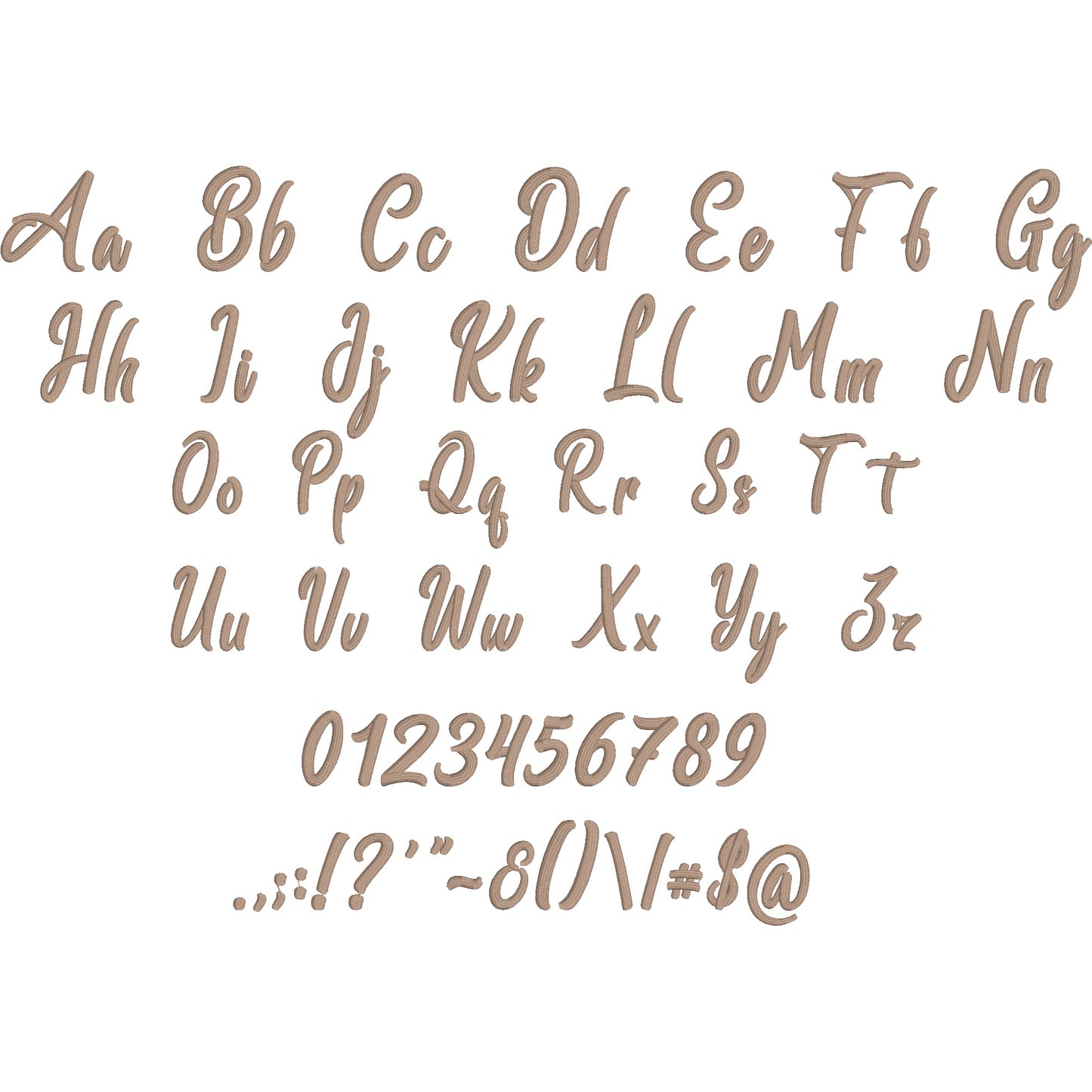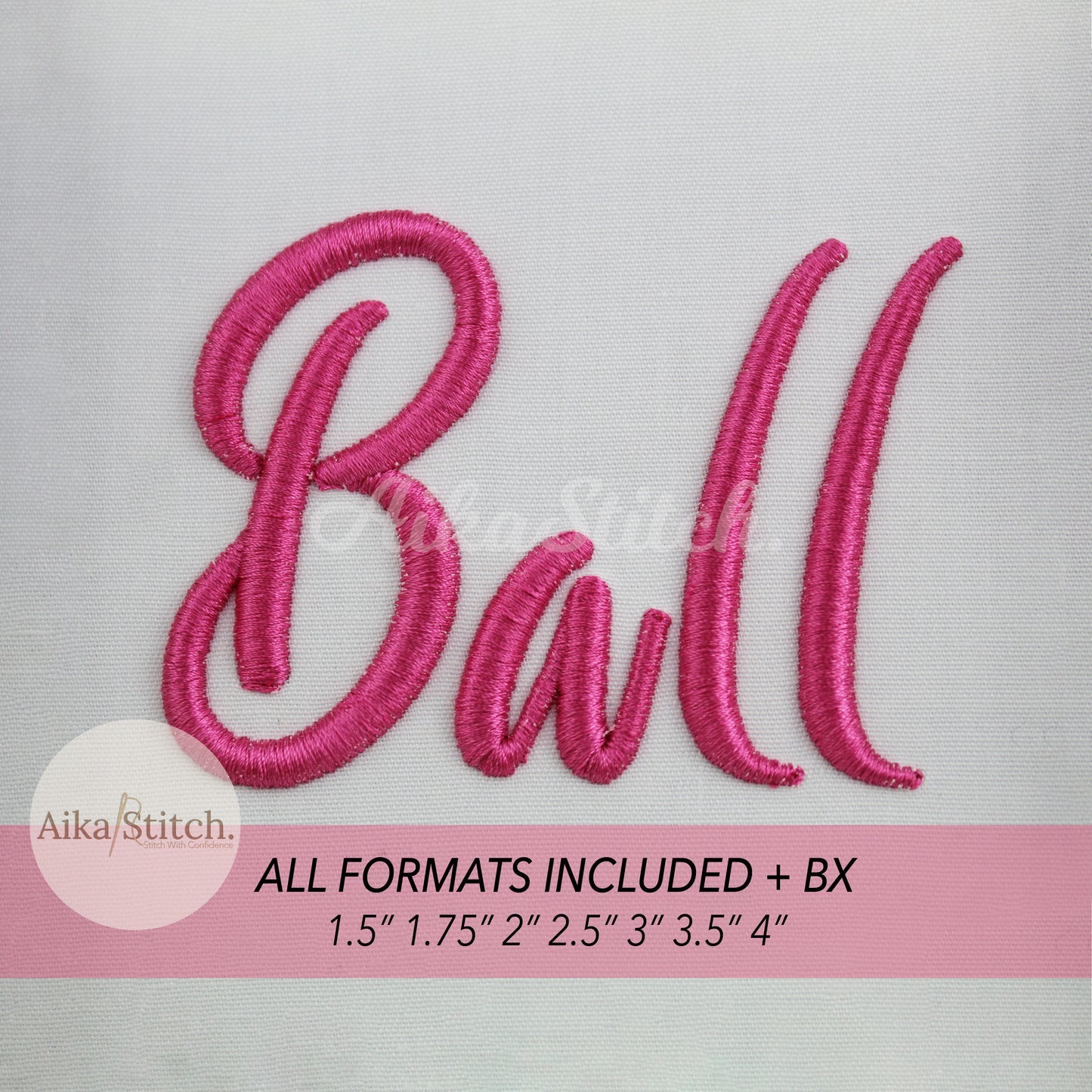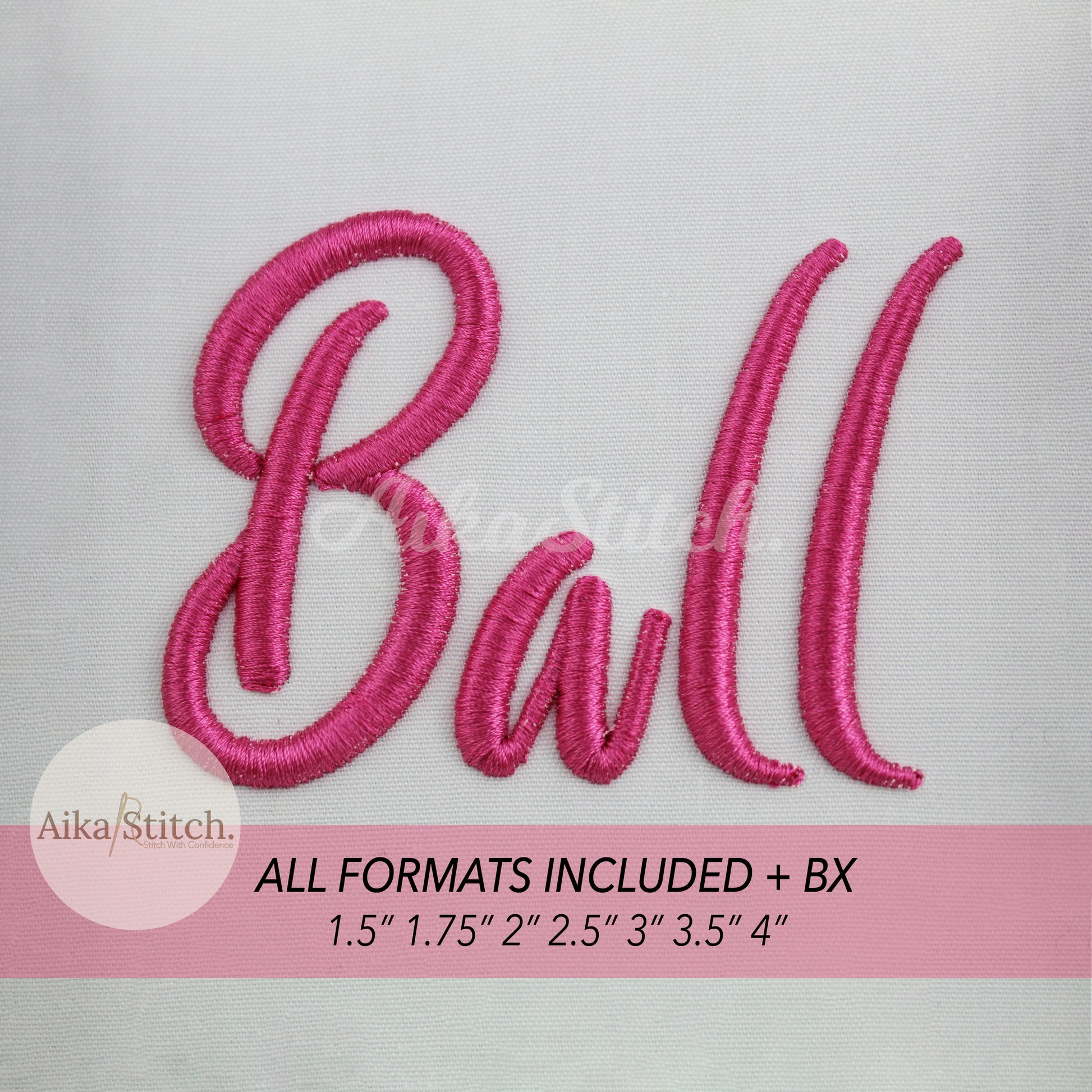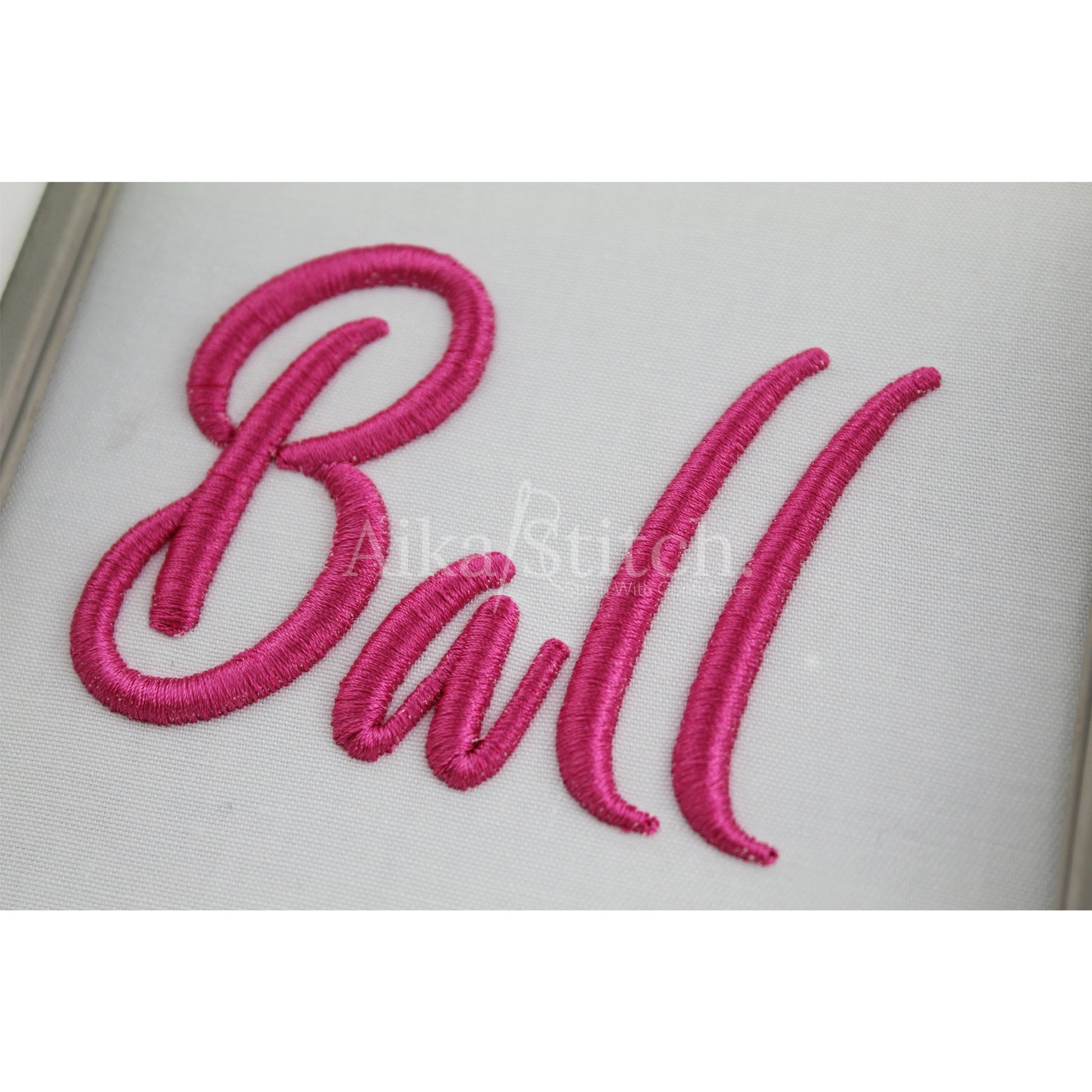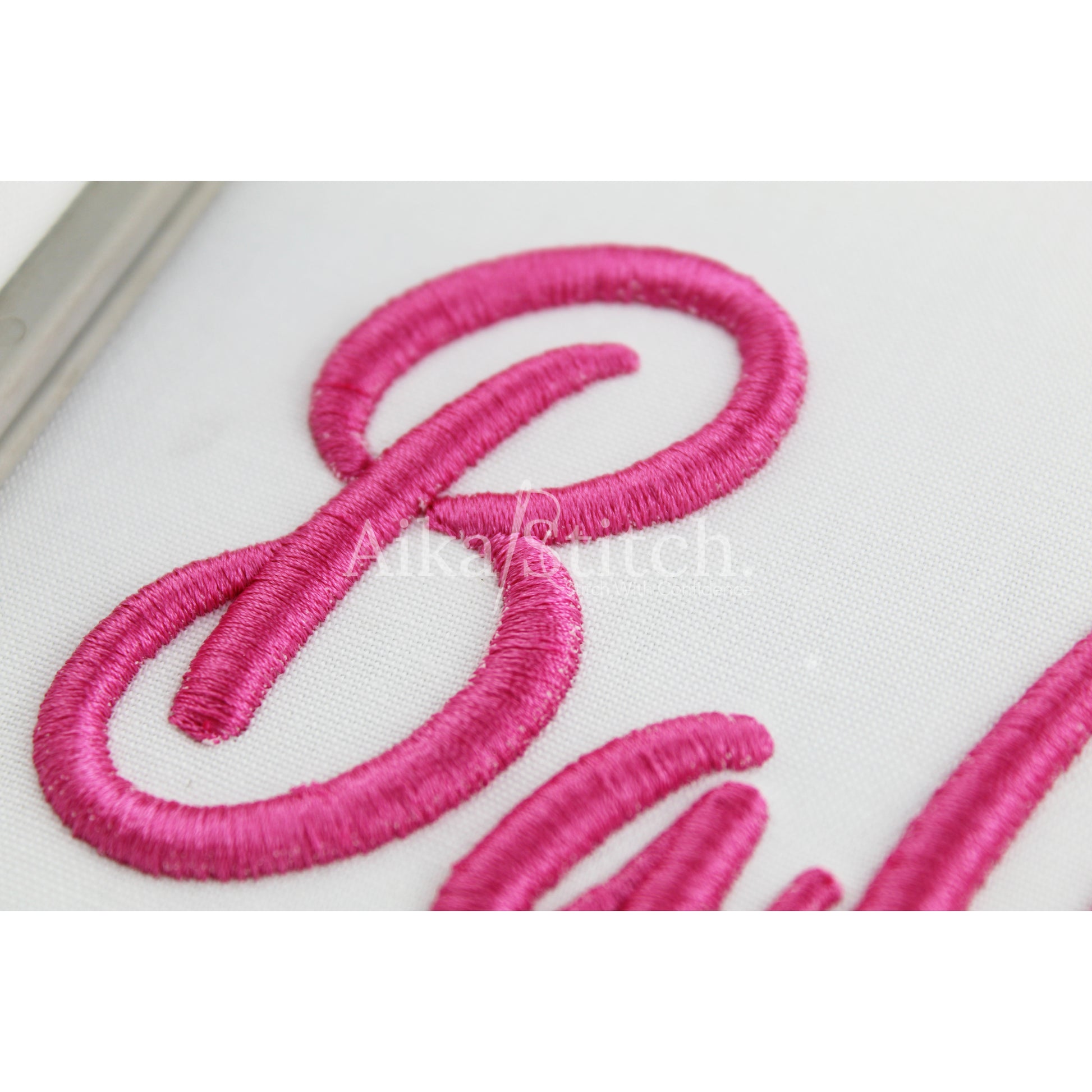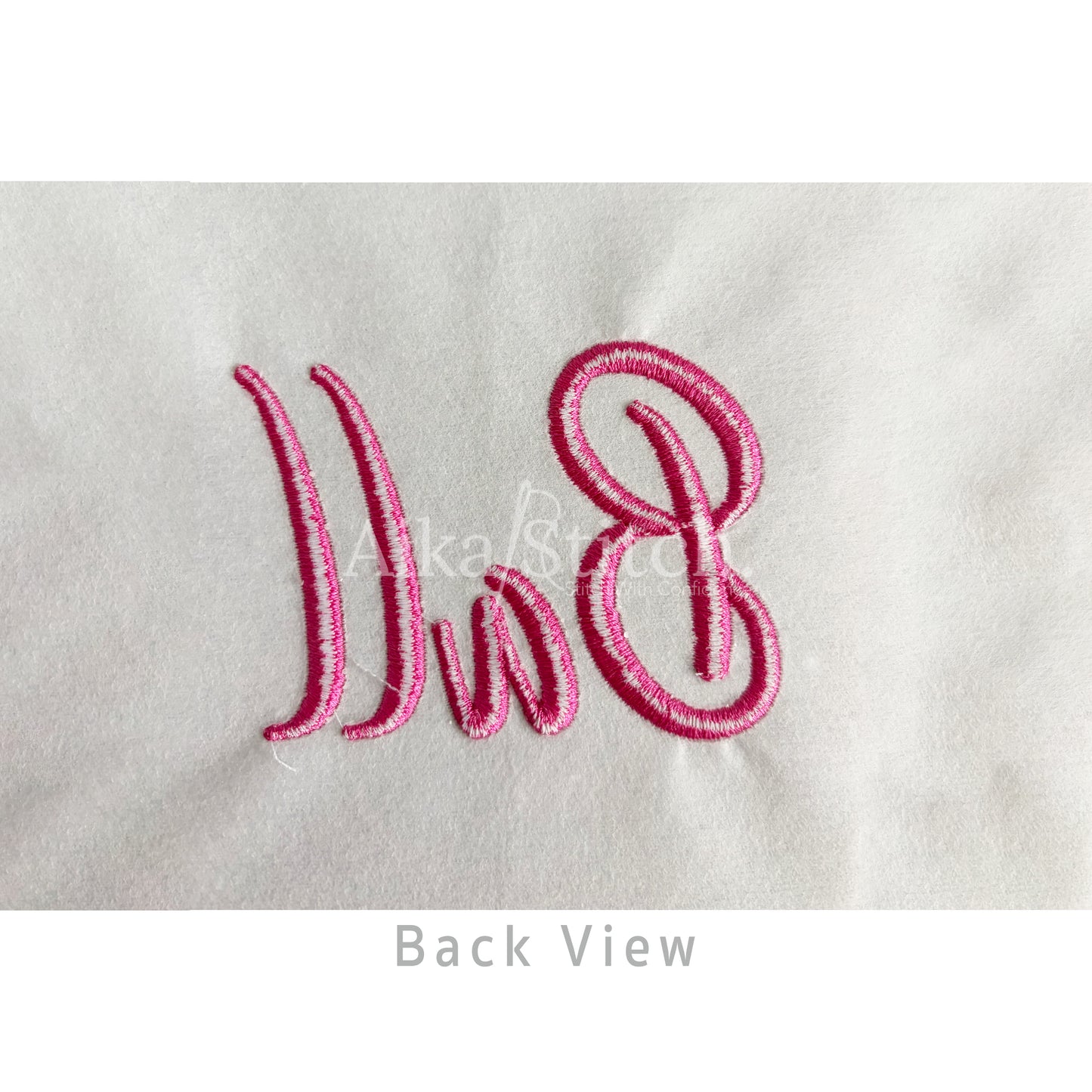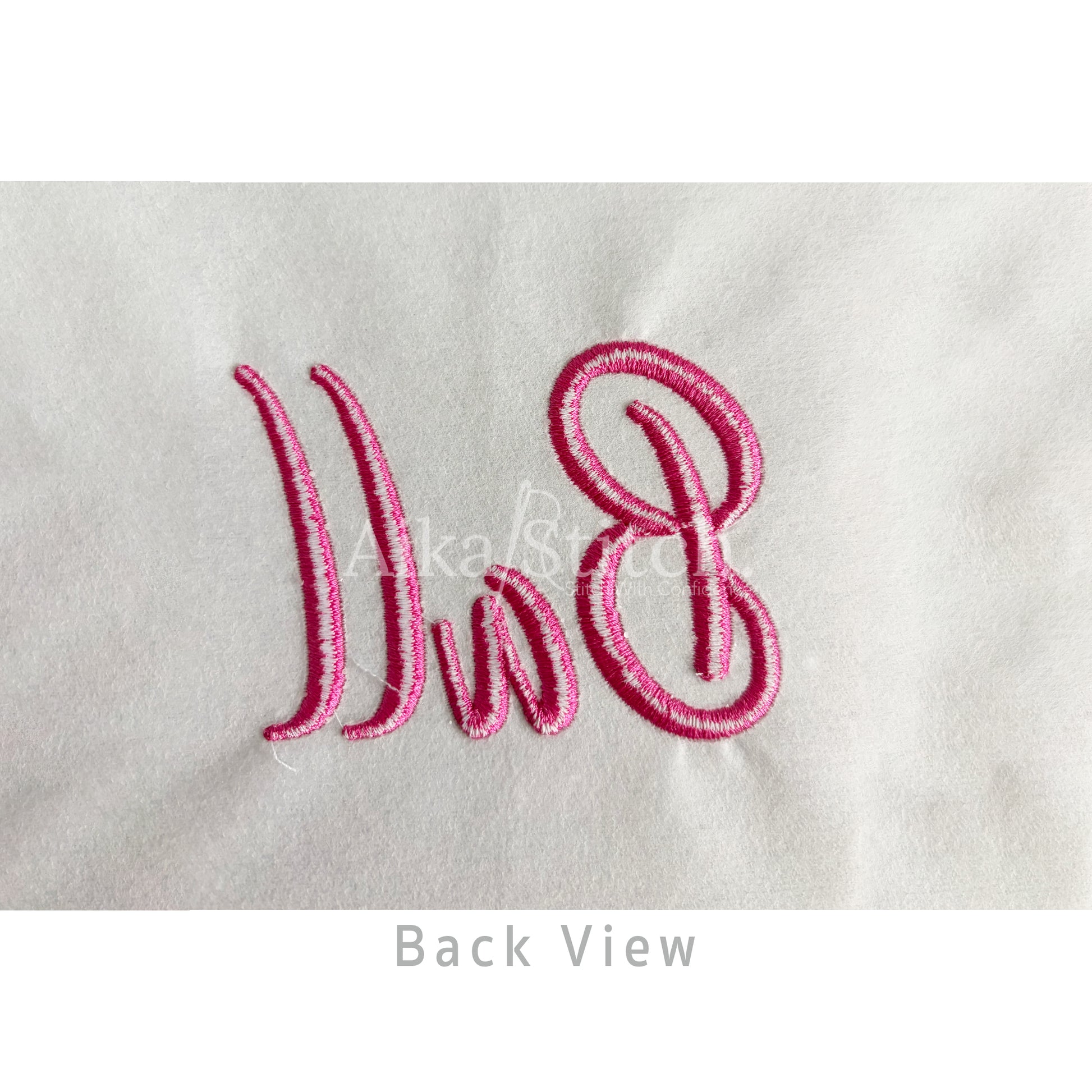
Ball 3D Puff Foam Handwritten Script Embroidery Font | BX Included
Ball 3D Puff is a Elegant Script machine embroidery font featuring beautiful satin stitch lettering. Perfect for shirts, towels, hats, baby gifts, monograms, and small business embroidery projects.